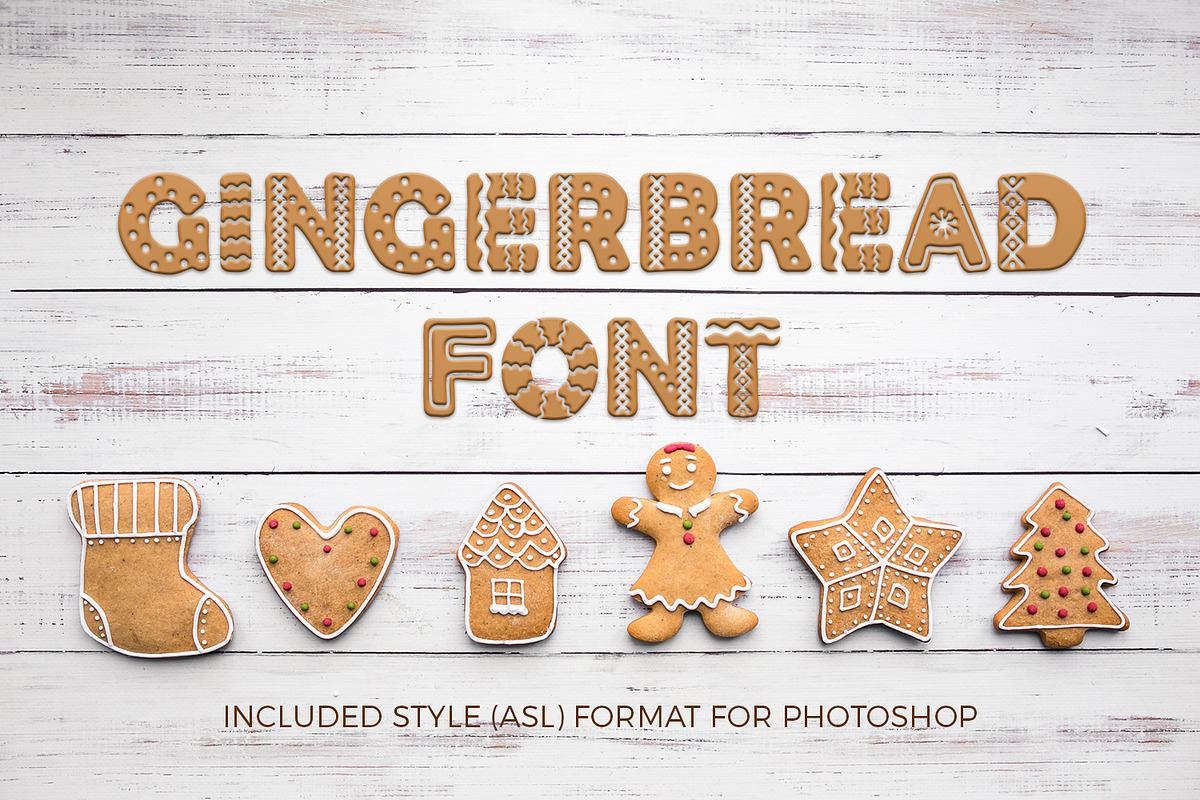
Gingerbread Font Free Download is a sweet and whimsical typeface inspired by cozy holidays, baked treats, and festive fun. With its playful curves and warm, handcrafted style, this font is perfect for Christmas cards, seasonal packaging, bakery branding, party invites, and DIY craft projects. It captures that cheerful, homemade vibe that instantly brings comfort and joy.
Using the Gingerbread Font Free Download adds a friendly and festive touch to any design. Whether you're creating winter-themed graphics or simply want to infuse a project with charm and personality, this font delivers in both style and mood. Its soft, rounded letterforms make it ideal for family-friendly and nostalgic content.